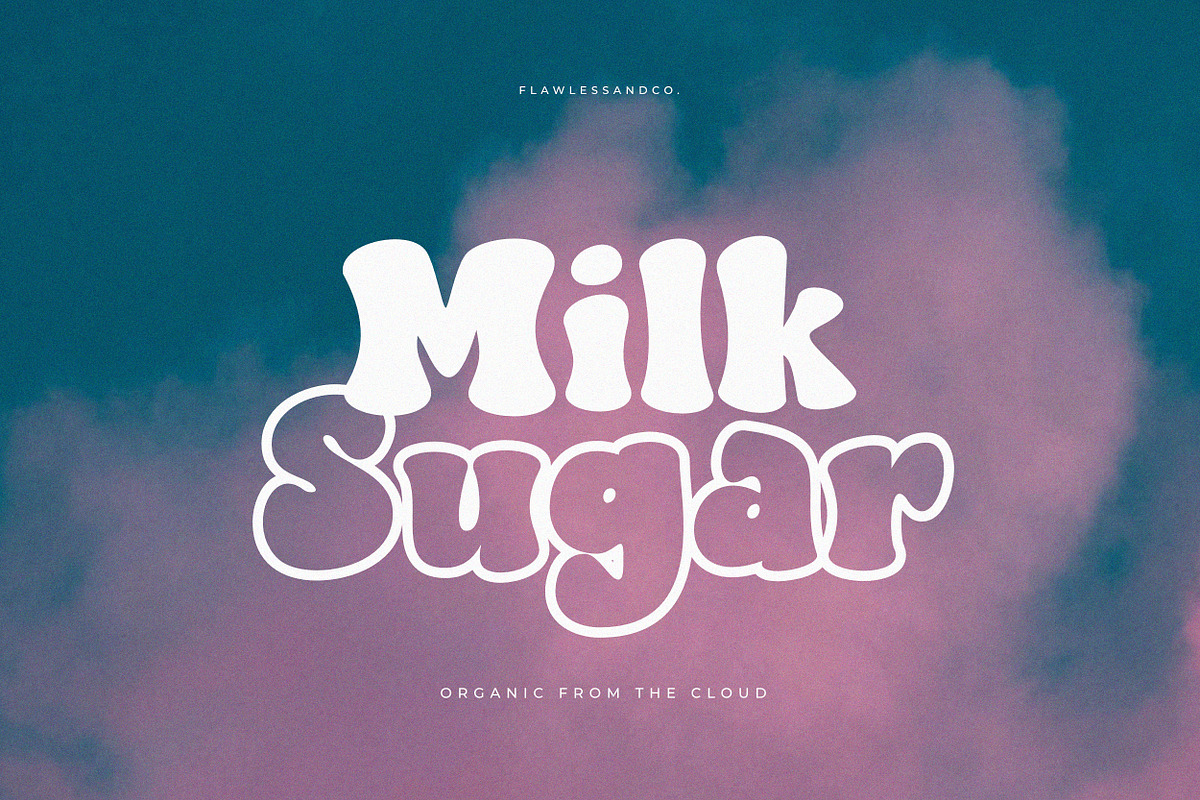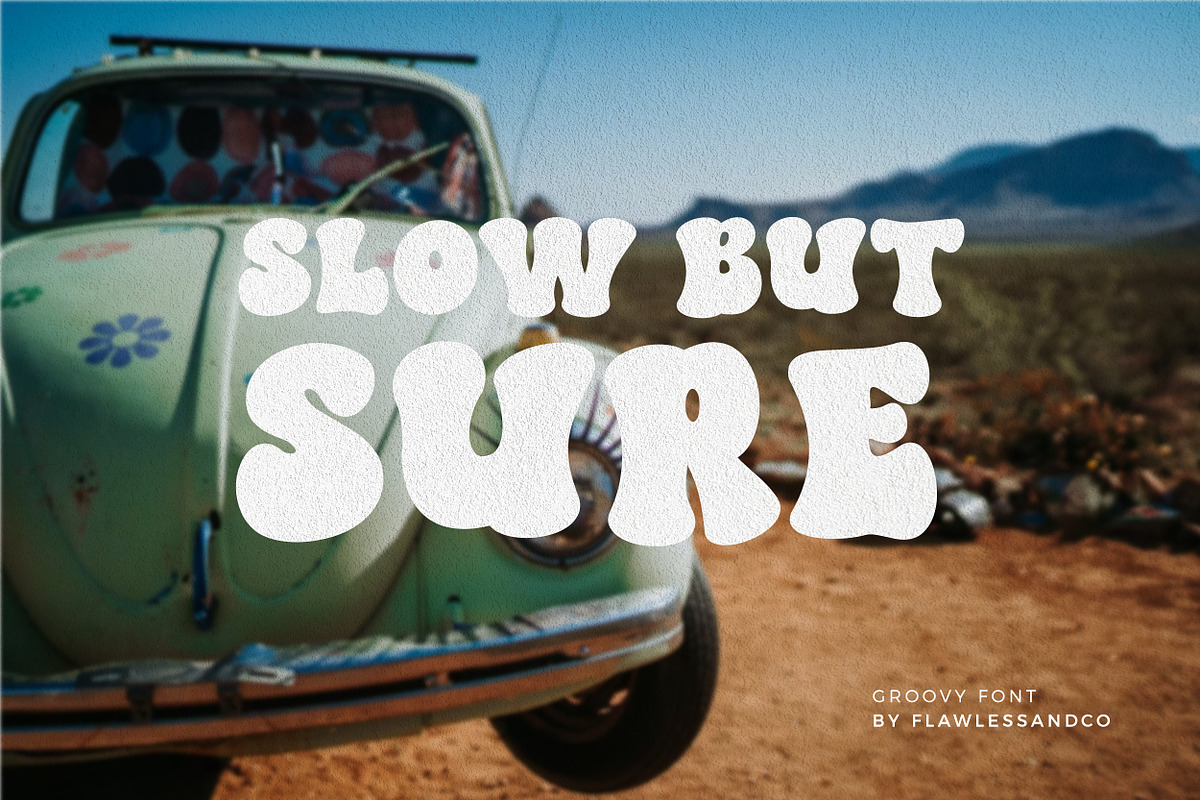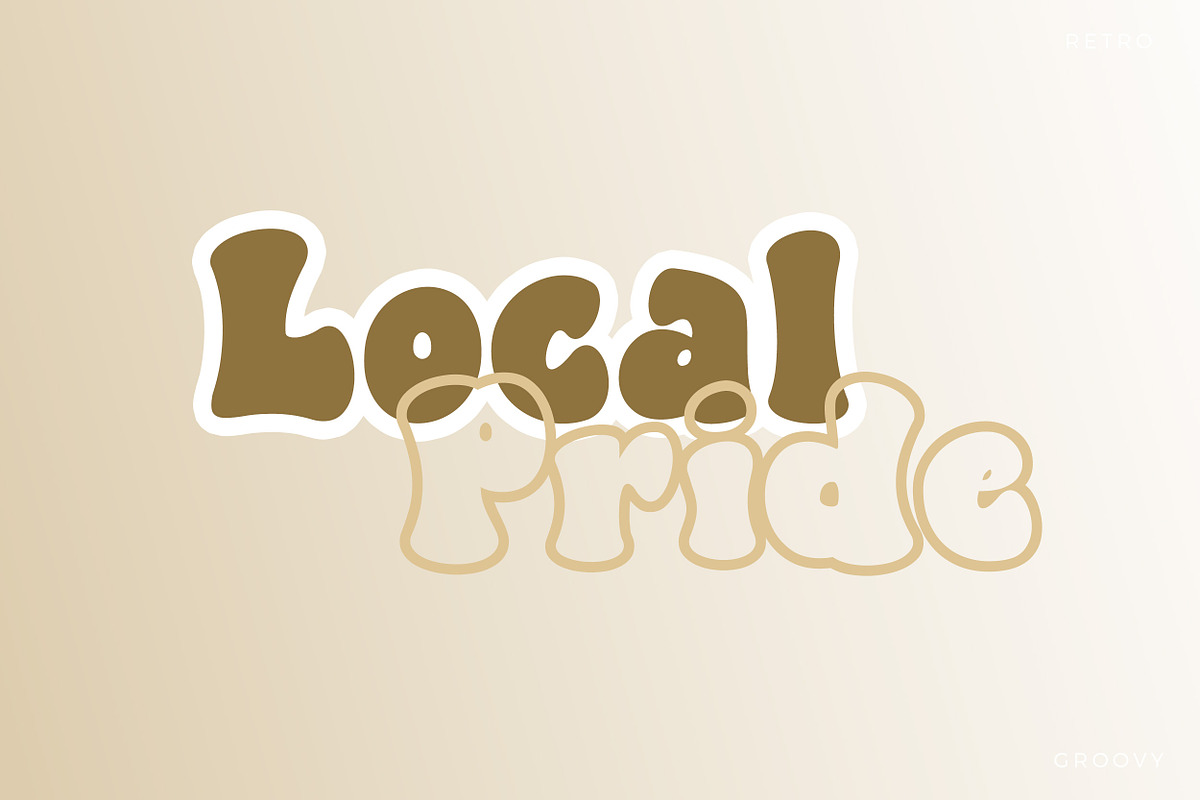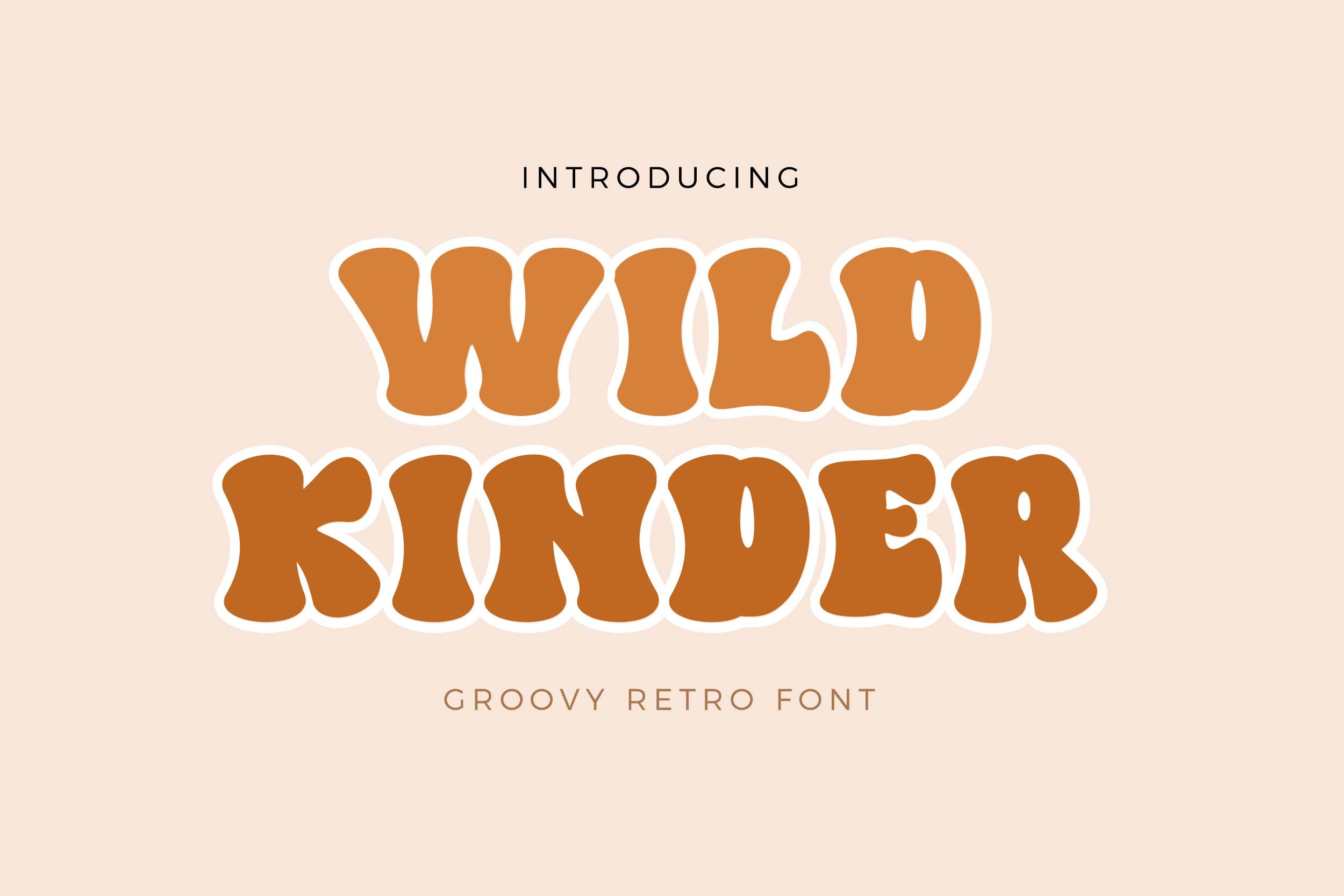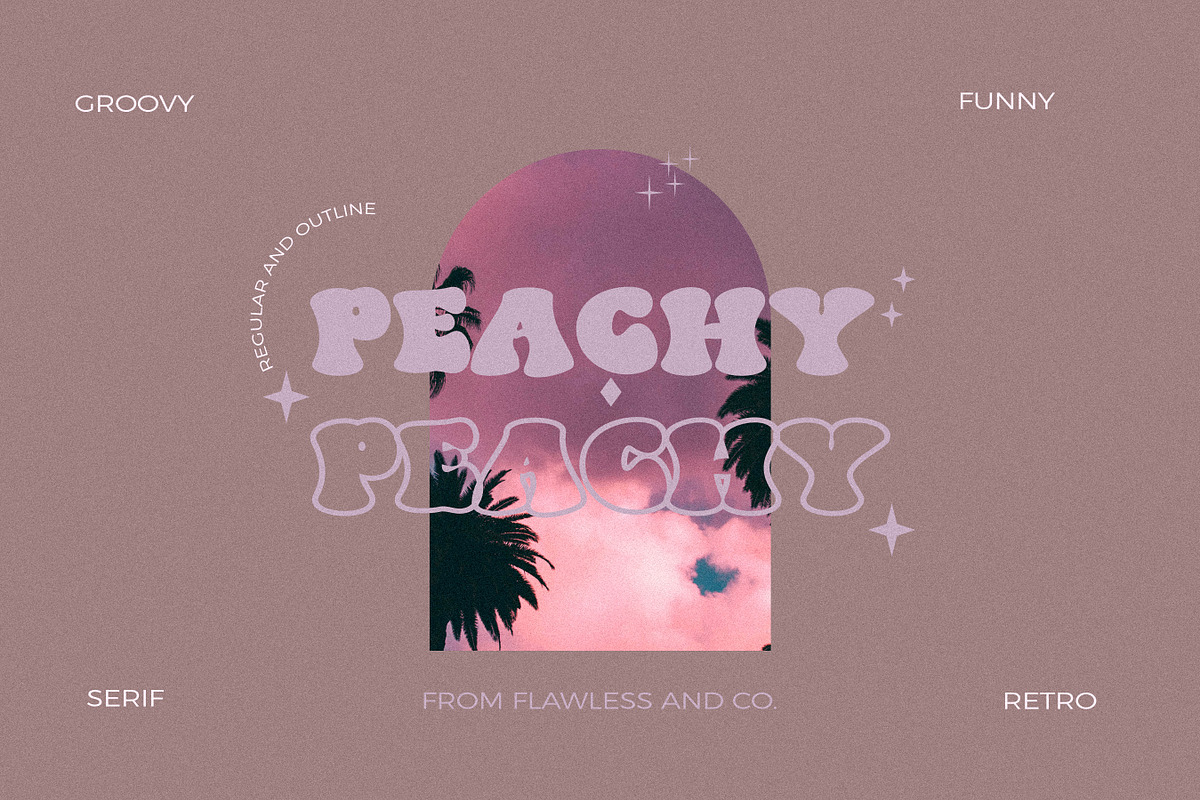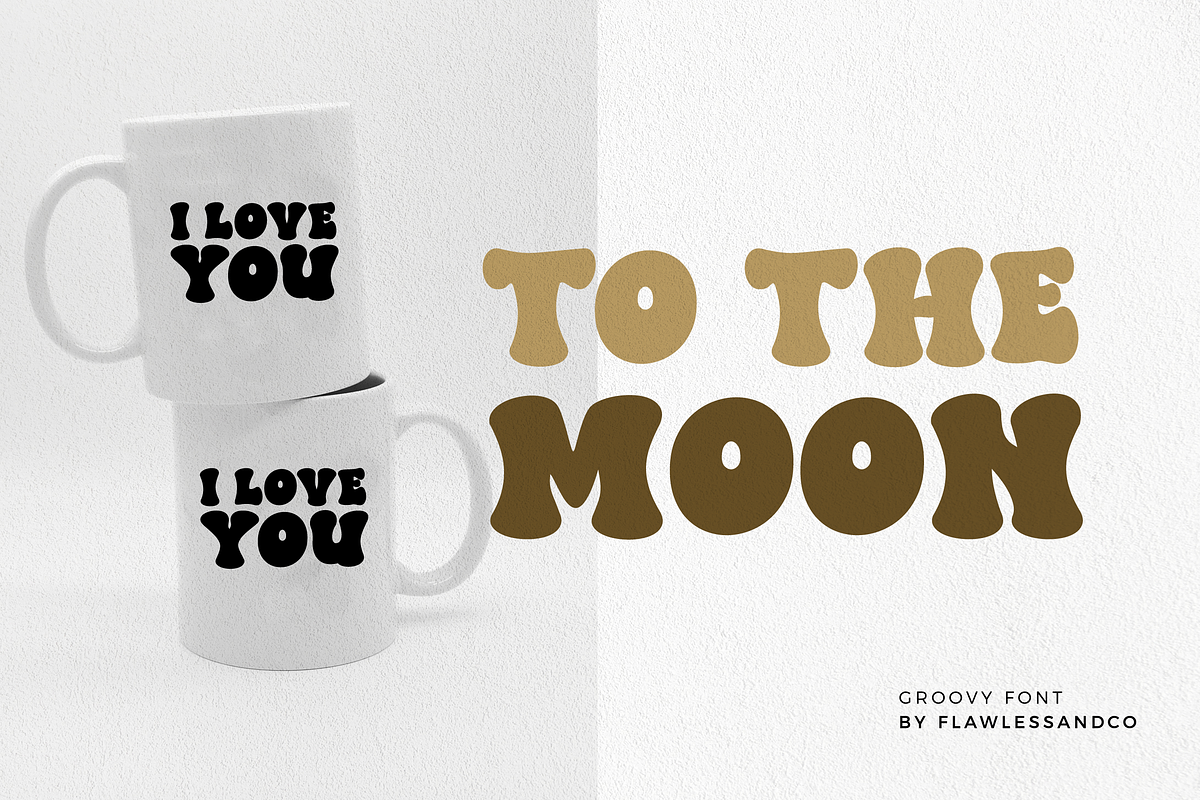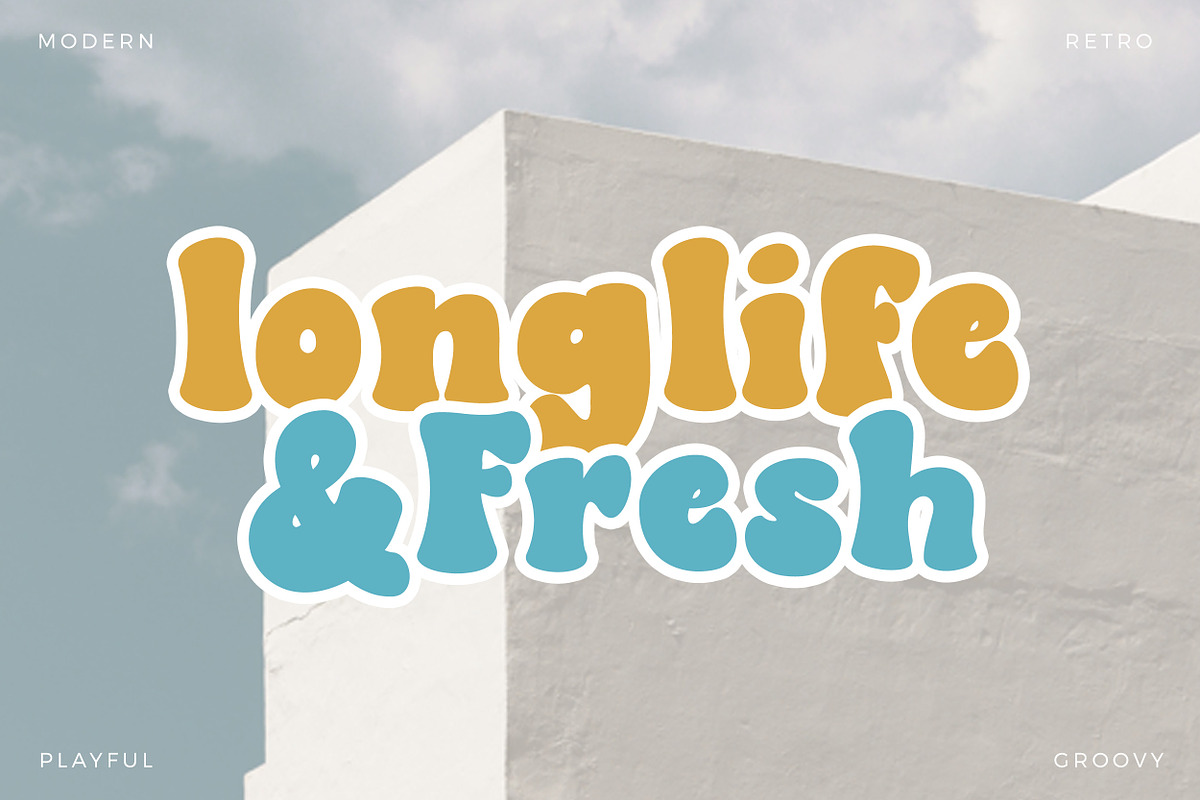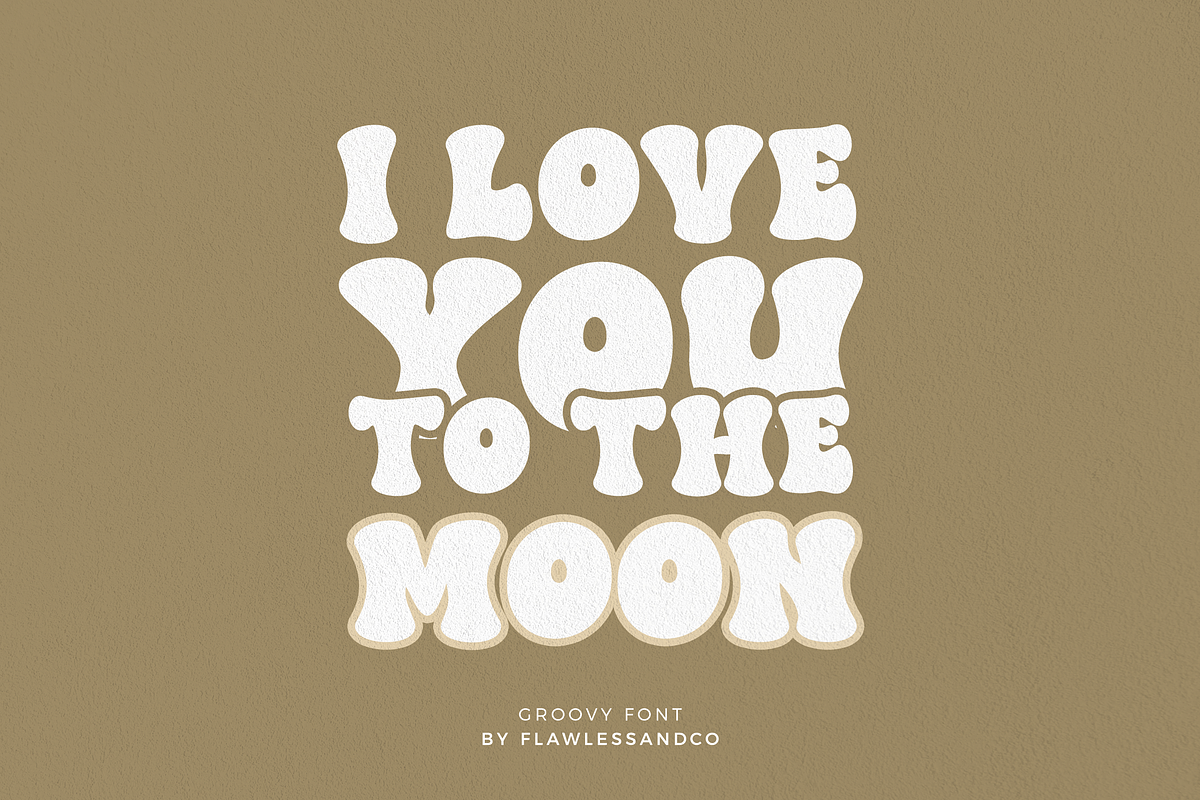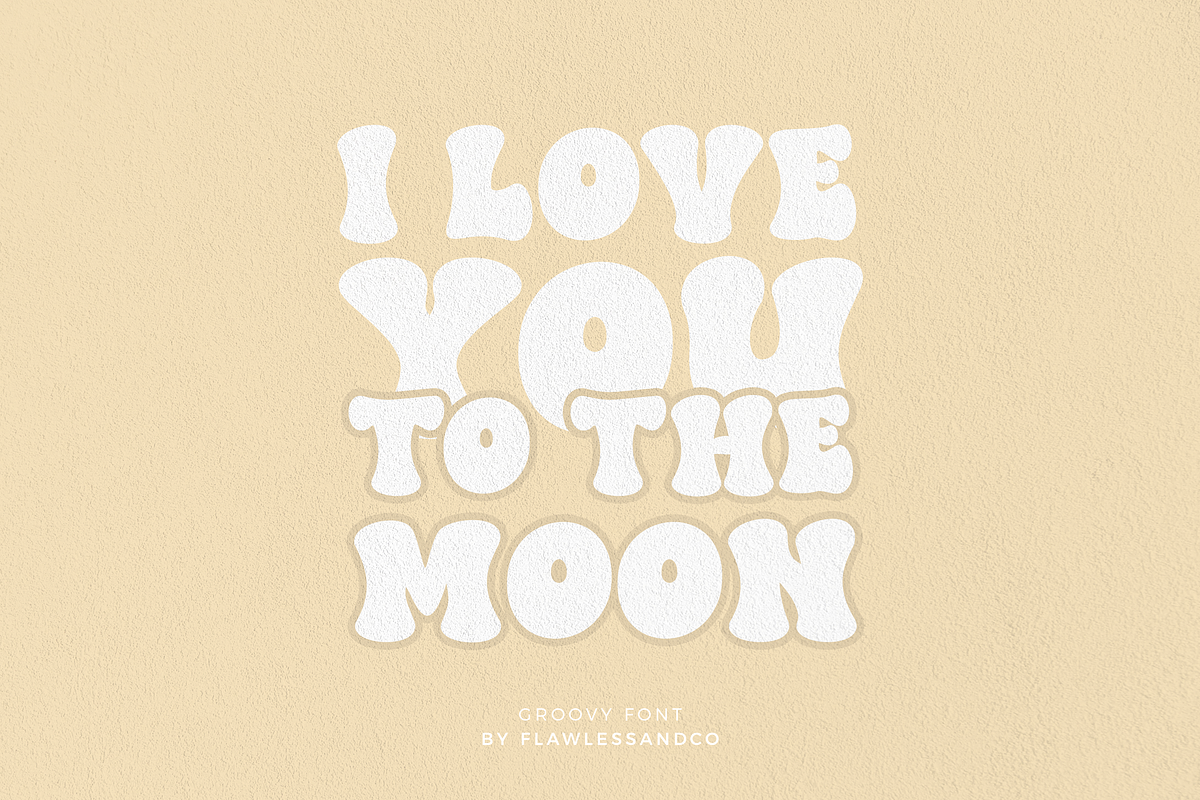
Wild Kinder - Groovy Font
Wild Kinder - Modern Boho Retro Font
introducing our new "Wild Kinder" Modern Retro with Fun and Elegant Style is perfect for branding, logos, invitation, master heads, and more.